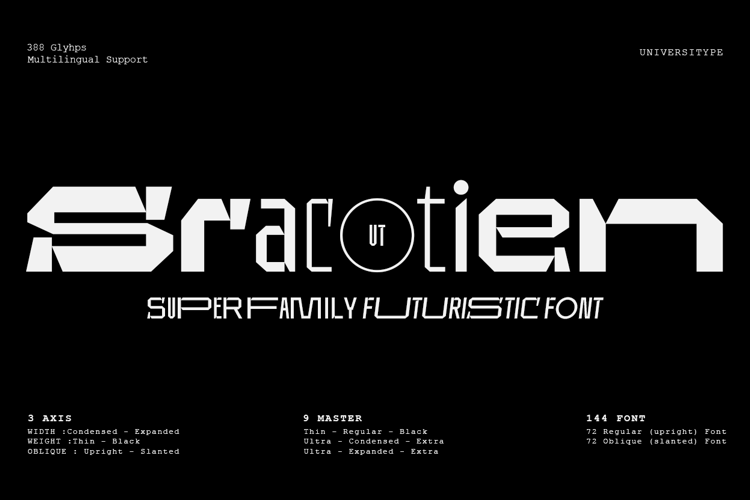
UT Sracotien Medium Demo Font
UT Sracotien is a versatile and modern superfamily font designed for contemporary digital and print applications. This font family offers a unique blend of futuristic and geometric aesthetics, making it an ideal choice for a wide range of creative projects. With its robust character set and extensive style options, UT Sracotien is perfect for designers looking for a font that can adapt to various design needs while maintaining a consistent and professional look.
Technical Details:
Glyphs: 388
Axes: Width (Condensed - Expanded), Weight (Thin - Black), Oblique (Upright - Slanted)
Master Styles: 9 (Thin, Regular, Black, Ultra Condensed, Extra, Ultra Expanded, Extra)
Font Styles: 144 (including Regular and Oblique options)